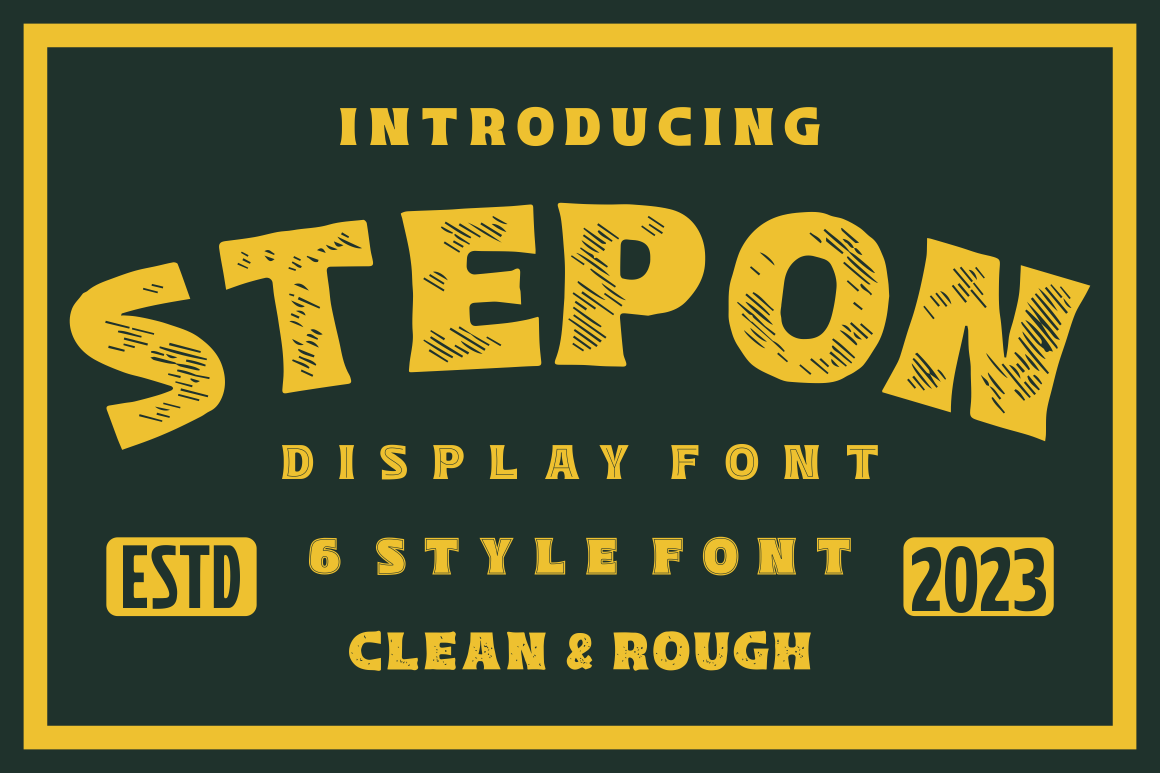
Hollywood Sign-Style Fonts: Bold Choices for Big, Bold Ideas
Hollywood-Style Fonts: Bold Choices for Big, Bold Ideas
In the world of design, bold and attention-grabbing fonts are essential for creating impactful visuals. Whether you’re designing a Hollywood-style sign, crafting an eye-catching headline, or building a memorable logo, selecting the right typeface can elevate your project. Bold fonts not only convey strength and confidence but also enhance readability, making them ideal for signage, titles, and branding.
Below, we explore some of the best bold font styles that blend vintage charm, modern versatility, and strong character to meet your design needs. These handpicked typefaces are perfect for creating powerful statements that capture attention at first glance.
1. Old Beck Display – A Vintage Retro Serif with Bold Personality
Old Beck Display combines vintage aesthetics with a commanding serif structure. This font features:
• Thick strokes and sharp serifs that exude a retro charm.
• A design reminiscent of classic posters, ideal for signage and nostalgic branding.
• Versatility for logos, large-scale displays, and impactful headlines.
Use Old Beck Display to evoke a timeless feel with a bold, nostalgic twist—perfect for projects that require a sense of history and character.
2. Marseilazi 9 – Strong and Stylish for Maximum Impact
Marseilazi 9 stands out with its robust, modern design. Key features include:
• Heavyweight strokes and clean lines, making it highly readable even from a distance.
• A contemporary aesthetic suitable for headlines, magazine covers, and digital ads.
• A commanding presence that works well for logo designs and promotional materials.
Marseilazi 9’s powerful structure is ideal for making bold statements while maintaining a sleek, professional appearance.
3. Burgs Multiply – A Unique Fusion of Strength and Playfulness
Burgs Multiply offers a dynamic, layered design that brings depth and energy to any project. Notable attributes include:
• A multiply effect that creates a textured, overlapping style.
• Bold letterforms with a playful and artistic vibe.
• A versatile use case for creative headlines, logos, and distinctive signage.
This font’s unique texture and bold style make it an excellent choice for projects seeking a fresh, artistic look with a strong impact.
4. Stepon – Various Display Styles for Versatile Boldness
Stepon combines multiple display styles in one font, offering flexibility and flair. Key features:
• Bold, blocky characters with geometric precision.
• A range of styles that accommodate different creative needs.
• Perfect for branding, advertisements, and striking editorial titles.
Stepon’s adaptability makes it a go-to choice for designers seeking a bold font that can match diverse project requirements.
Why Bold Fonts Are Essential for Headlines, Signs, and Logos
When crafting signs, titles, or logos, the importance of bold fonts cannot be overstated. These typefaces:
• Enhance visibility and readability: Thick, well-defined strokes ensure that text is legible from a distance.
• Create emotional impact: Bold fonts evoke strength, confidence, and authority.
• Establish brand identity: A strong font choice can become a defining feature of a brand’s visual language.
By using fonts like Old Beck Display, Marseilazi 9, Burgs Multiply, and Stepon, designers can craft compelling messages that demand attention and leave lasting impressions.
Conclusion
Bold fonts are indispensable tools in a designer’s arsenal. From vintage-inspired serifs to modern, layered typefaces, the right bold font can transform ordinary text into powerful visual statements. Explore these standout typefaces to find the perfect match for your next big project.